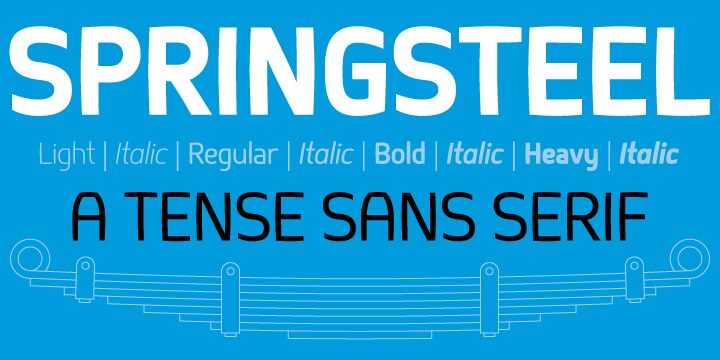
Springsteel Light by Jan Schmoeger of Paragraph is a free light sans serif with hairline strokes, elongated proportions, broad softly drawn curves, and a gentle change in weight along the contours. Its spare forms look airy and distinctly contemporary.
Publishing suits its refined restraint, especially in fashion magazines and gallery programs where the slim lettering can echo clean photography and understated art direction. Beauty packaging and cultural event posters are also plausible, though the font is most convincing as elegant editorial titling.
Springsteel is a display sans serif with curved outer lines and only a few straight inner lines. It was spaced and kerned by Igino Marini/iKern.